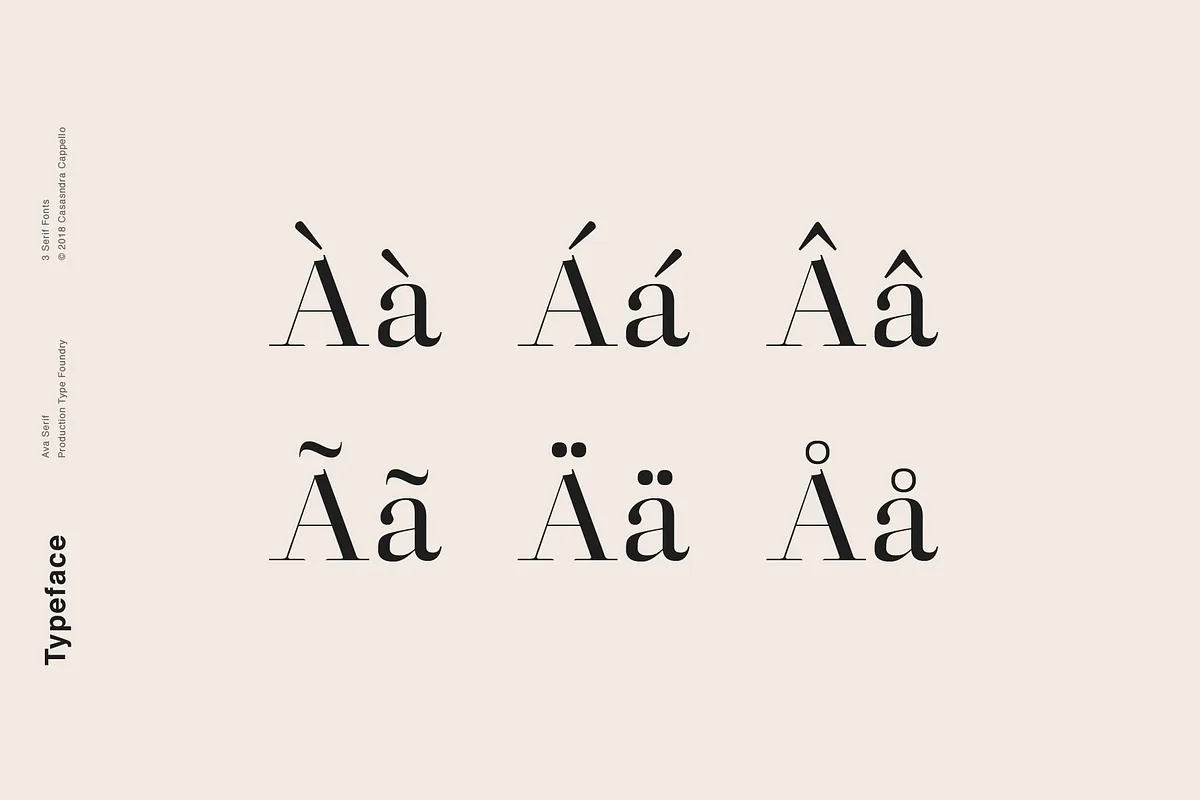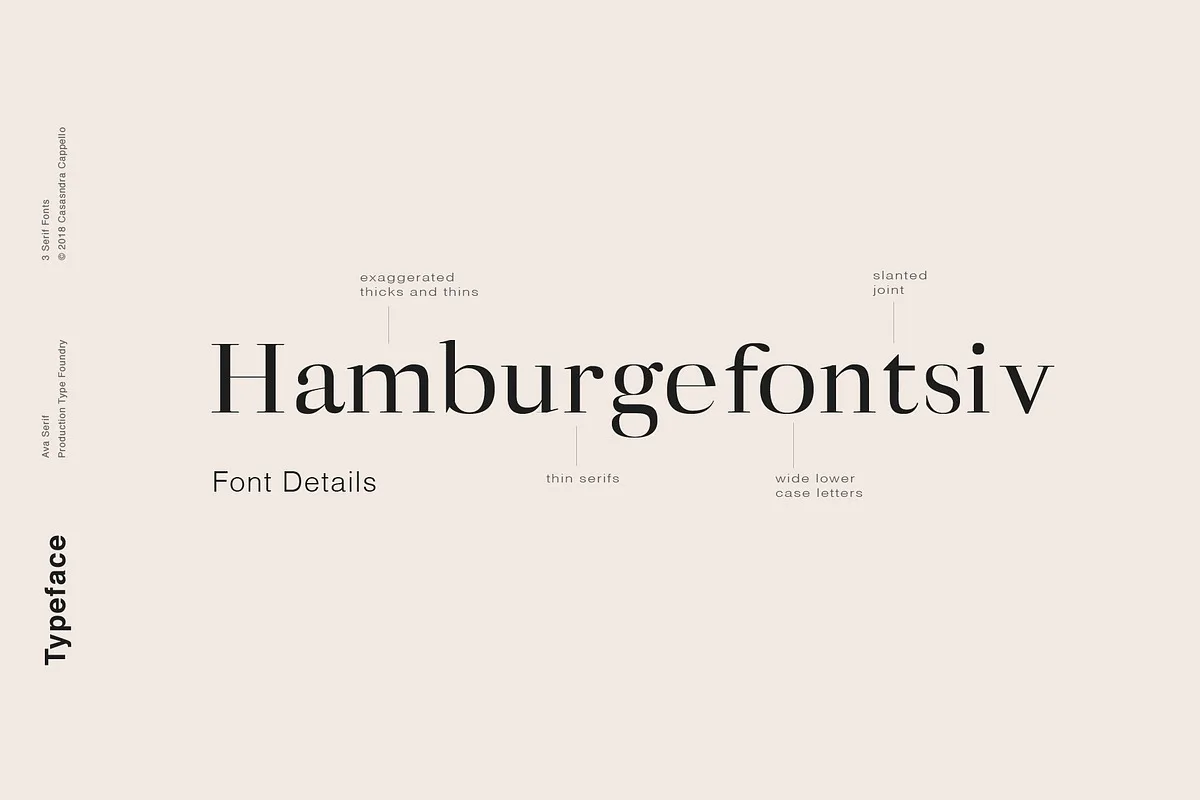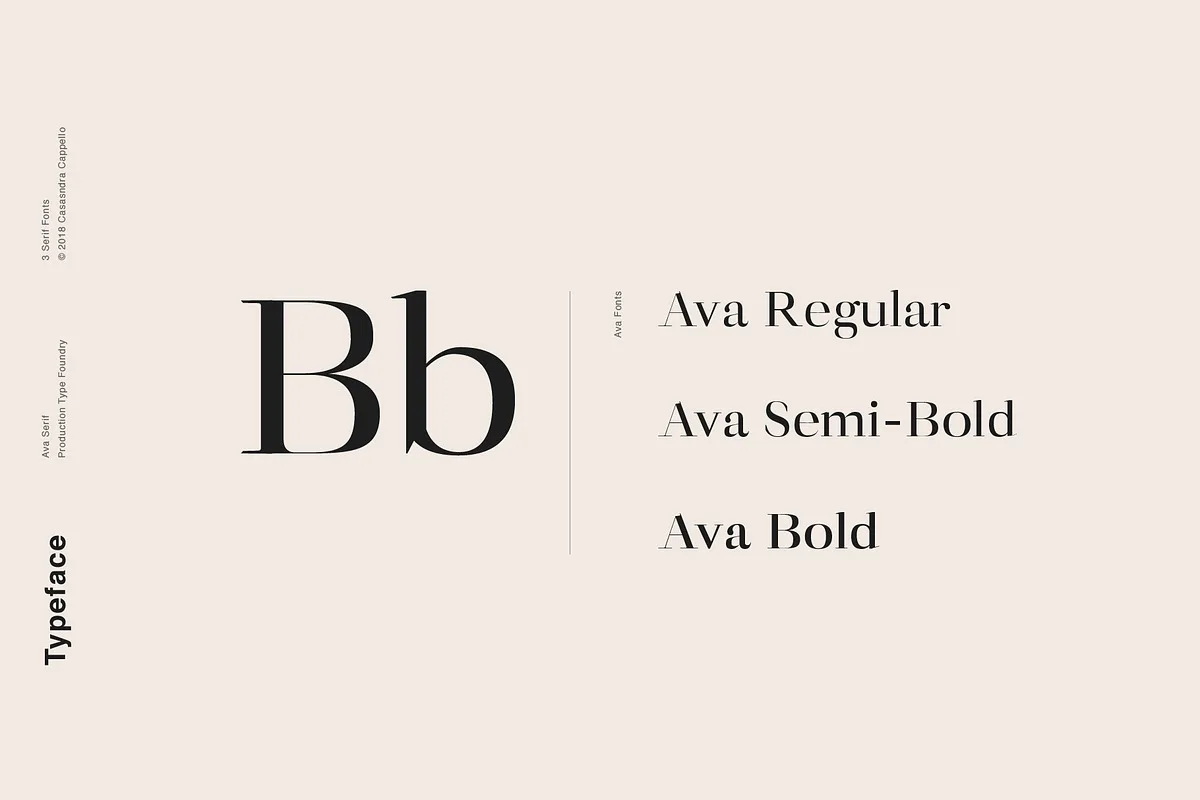
Ava is a classic serif typeface filled with personality. This classy and feminine typeface can be used for both headers and body copy. This font family includes all Latin characters (including accents), numbers, special characters, and punctuation.
It is a great choice for fashion projects, headlines, titles, posters, packagings, covers and logotypes but can be also successfully used in some occasional texts.